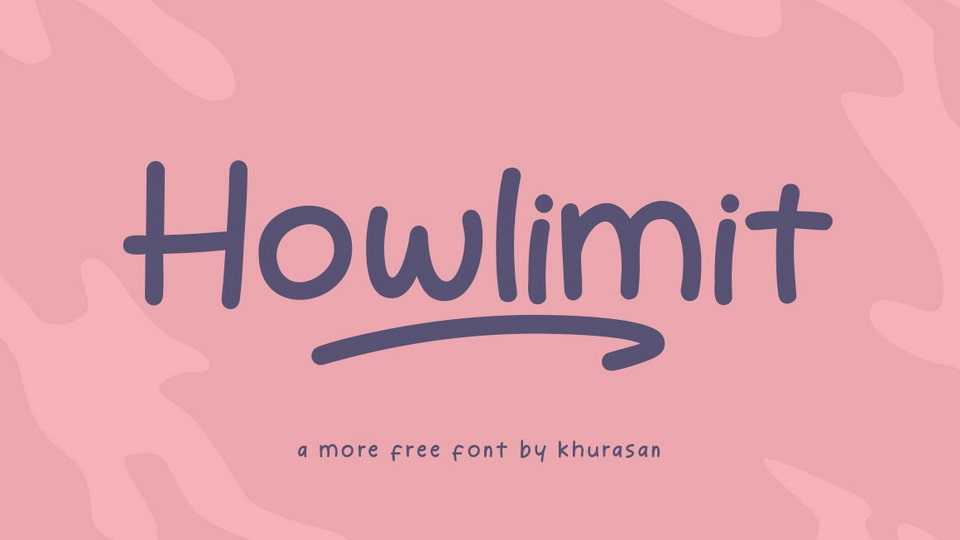
Download Howlimit font, a whimsical and vibrant handwritten typeface that brings your comic creations to life. Its versatility allows you to use Howlimit font for titles, captions, sound effects, and more, infusing each project with the magic of hand-drawn charm.